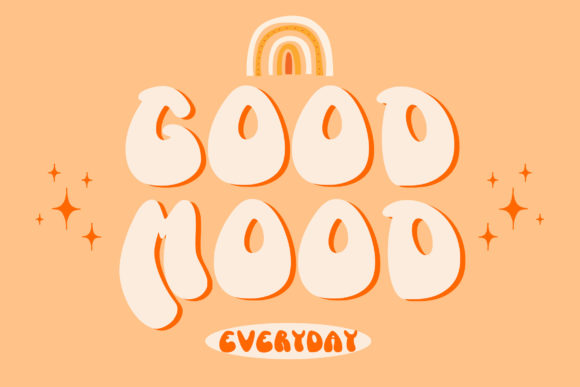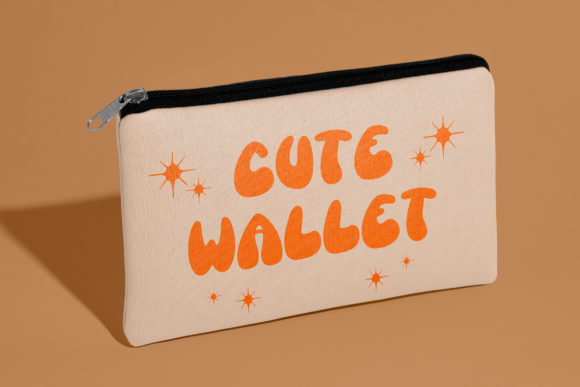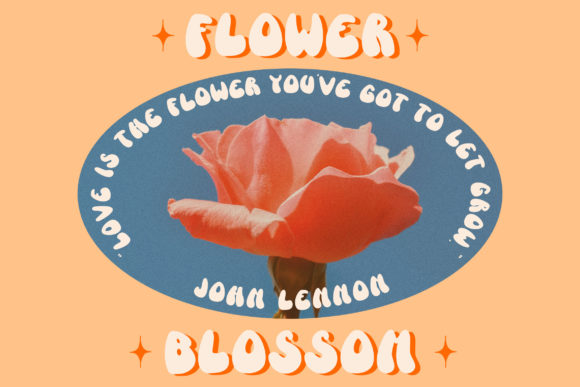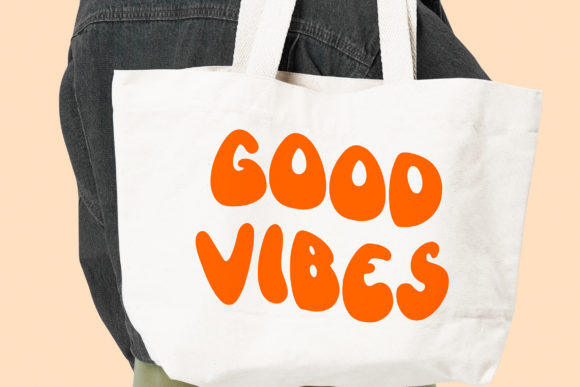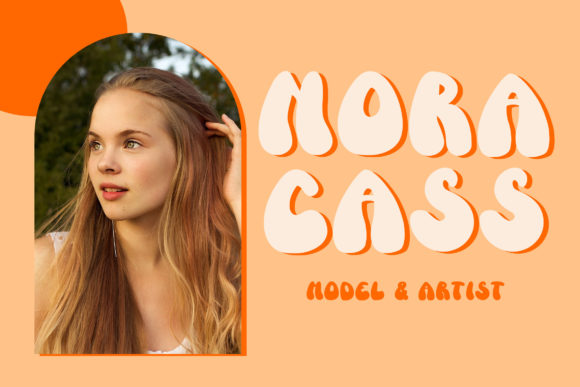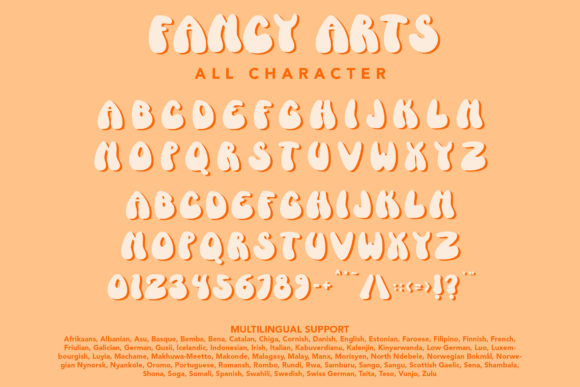
Fancy Arts Font: Elevate Your Designs with a Groovy Retro Twist
In the world of typography, a font can make or break a design. For designers and crafters looking to add a touch of personality to their projects, Fancy Arts – Groovy Retro Font is a game-changer. This display typeface boasts distinctive handwritten characters that are perfect for a wide range of applications, from branding and logos to wedding designs and product packaging.
The Unique Charm of Fancy Arts Font
Fancy Arts Font is more than just a typeface; it’s an experience. Its groovy retro vibe instantly adds a layer of coolness to any design, making it stand out in a crowded digital landscape. The font’s handwritten characters are carefully crafted to exude a sense of nostalgia while still feeling fresh and modern. This unique blend makes Fancy Arts Font an excellent choice for designers who want to create memorable and engaging visuals.
One of the key benefits of Fancy Arts – Groovy Retro Font is its versatility. This display typeface can be used across various mediums and projects, including:
- Branding Projects: Create a lasting impression with a unique logo or brand identity that speaks to your audience.
- Logos: Stand out with a distinctive logo that captures the essence of your brand.
- Wedding Designs: Add a touch of elegance and whimsy to wedding invitations, stationery, and decor.
- Media Posts: Elevate your social media presence with eye-catching typography.
- Advertisements: Grab attention with bold and stylish text.
- Product Packaging: Make your products shine with unique and captivating packaging designs.
- Product Designs: Incorporate Fancy Arts Font into your product designs for an extra layer of style.
- Labels: Create custom labels that reflect your brand’s personality.
- Photography: Use Fancy Arts Font for watermarks or photo captions to add a professional touch.
- Invitations: Whether it’s a wedding, birthday, or any other celebration, make your invitations unforgettable.
- Stationery: Transform your stationery into a work of art with this beautiful font.
Why Choose Fancy Arts – Groovy Retro Font?
With so many fonts available, why choose Fancy Arts – Groovy Retro Font? Here are a few compelling reasons:
- Unique Style: Its distinctive handwritten characters ensure your designs will stand out.
- Easy to Use: Fancy Arts Font is designed to be user-friendly, making it accessible for designers of all skill levels.
- High-Quality: Crafted with precision, this font delivers high-quality results perfect for both digital and print projects.
- Groovy Retro Aesthetic: It adds a cool, retro vibe that’s sure to appeal to audiences looking for something fresh yet nostalgic.
Tips for Using Fancy Arts Font Effectively
To get the most out of Fancy Arts – Groovy Retro Font, consider the following tips:
- Mix and Match: Combine Fancy Arts Font with other fonts to create a unique contrast.
- Play with Sizes: Experiment with different sizes to emphasize certain words or phrases.
- Adjust Colors: Choose colors that complement your brand or design theme.
- Consider Context: Ensure the font aligns with the overall tone and message of your project.
Fancy Arts – Groovy Retro Font is a versatile and stylish typeface that can elevate any design project. Its unique blend of retro charm and modern appeal makes it an excellent choice for designers and crafters looking to add a touch of personality to their work. Whether you’re creating branding materials, wedding designs, or product packaging, this font is sure to make your designs stand out. So, why settle for ordinary typography when you can make a statement with Fancy Arts Font?
Embrace the groovy retro vibe and take your designs to the next level with Fancy Arts – Groovy Retro Font. Get creative, experiment with its possibilities, and watch your designs transform into captivating works of art.